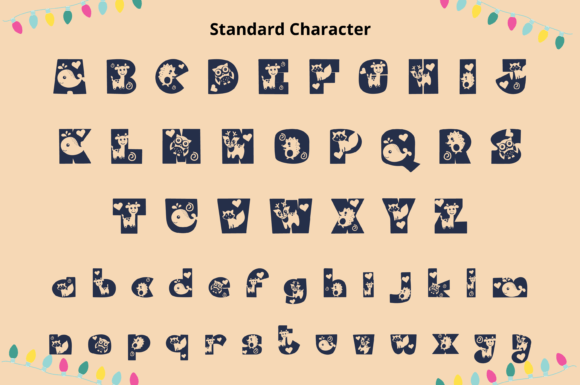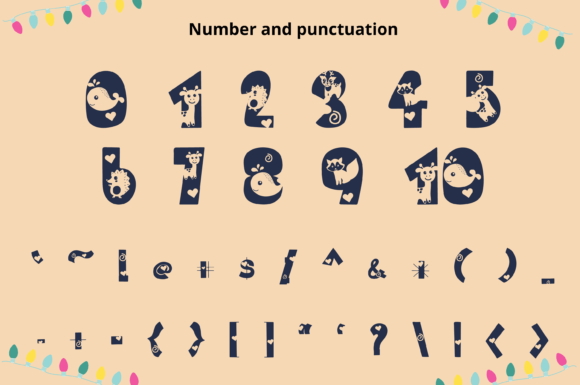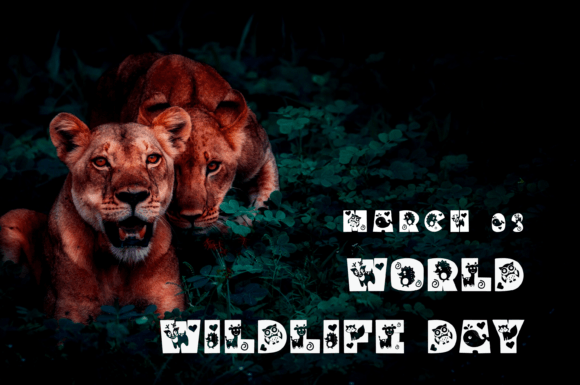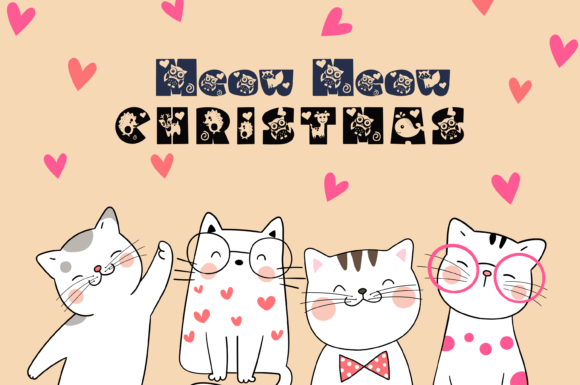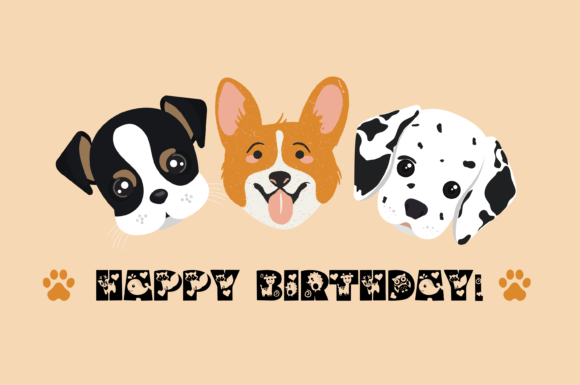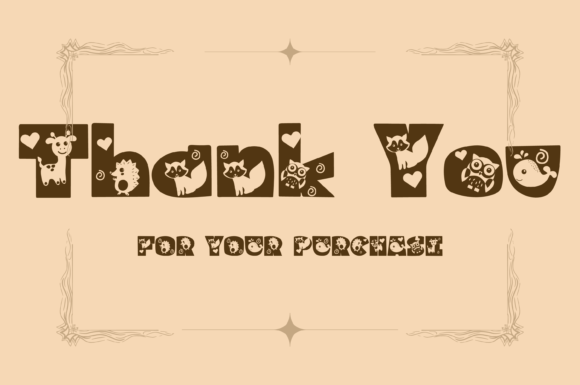
As a designer, there’s nothing quite like the thrill of finding the perfect font to elevate your next project. You’re scrolling through your favorite font library, and suddenly, you stumble upon something that makes your heart skip a beat. The curves are just right, the colors are vibrant, and it screams creativity. That’s exactly what happened when we discovered the Animal Party Font.
This exclusive display font is designed to bring a touch of whimsy and fun to your designs. From social media posts to invitations and posters, the Animal Party Font is perfect for any project that needs a little extra oomph. With its modern design and playful feel, this font is sure to make your designs stand out from the crowd.
Whether you’re a seasoned designer or just starting out, the Animal Party Font is a valuable addition to your toolkit. Its versatility and unique style make it a must-have for anyone looking to add some personality to their work.
Animal Party Font Key Features
- Unique Characteristics: The Animal Party Font features a playful, whimsical design with intricate animal illustrations and patterns, making it ideal for children’s books, educational materials, and party invitations.
Animal Party Font Review
I recently had the chance to work with the Animal Party Font, and I must say it’s a unique addition to any design project. ✨ The font’s playful, whimsical style is perfect for creating eye-catching graphics, especially for children’s products or events.
- ✨ The font’s bold, expressive strokes add a lot of character to any text.
- ✨ The animal-inspired design elements, like the cute cat and dog icons, can be used to add a fun touch to your designs.
- ✨ The font is highly customizable, allowing you to adjust the size, color, and spacing to suit your needs.
- ⚠️ The font may not be suitable for formal or professional projects, as its playful style may come across as unprofessional.
- ⚠️ Some users may find the font’s bold style overwhelming or difficult to read, especially in smaller sizes.
Overall, I think the Animal Party Font is a fun and creative option for designers looking to add a playful touch to their projects. While it may not be suitable for all types of projects, it’s definitely a great choice for those looking to create a lighthearted, child-friendly atmosphere.
The Animal Party Font is perfect for:
– Children’s party invitations and decorations.
– Animal-themed events and merchandise.
– Creating a playful and whimsical atmosphere.
For best results, use the font in combination with bold, bright colors and playful graphics.